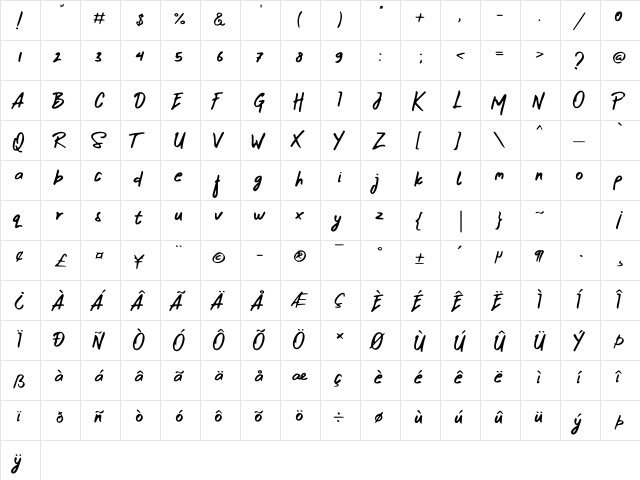
Brown Choco Regular
Design Context for Brown Choco Typeface
Brown Choco is a composed and adaptable typeface that performs quietly and consistently across a wide range of design contexts.